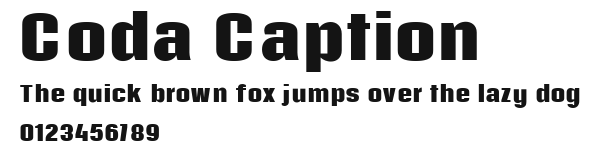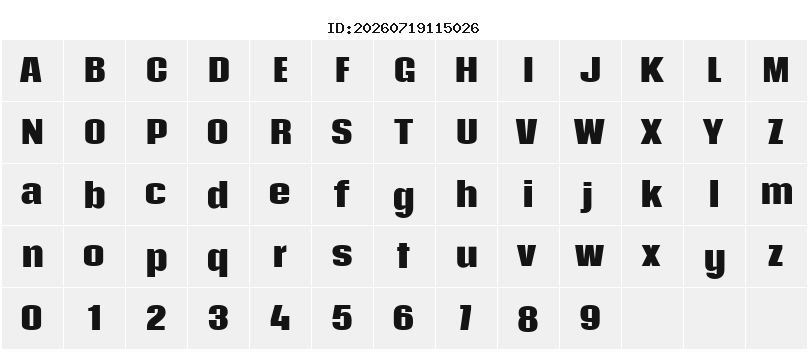
Coda Caption Preview
• Font Name: Coda Caption
• Font Style: Heavy
• Designer: vernon adams
About Coda Caption.ttf
Coda Caption.ttf is a modern, elegant sans-serif font designed for ultimate readability and visual harmony. Perfect for branding, headlines, web design, and print materials.